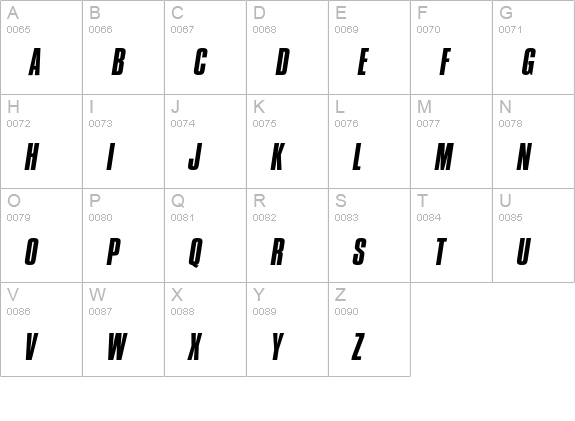
CompactaEF-RegularItalic Font Details
CompactaEF-RegularItalic is a sleek and stylish font that exudes sophistication and modernity. Its italicized design adds a touch of elegance to any text, making it perfect for use in various creative projects, from branding to editorial design. The slender and angular letterforms of CompactaEF-RegularItalic give it a unique and contemporary look that is sure to catch the eye. What sets CompactaEF-RegularItalic apart is that it is available for free download at FontsMarket.com. This means that you can easily access this stunning font for your personal and commercial projects without any cost involved. Whether you are designing a website, creating marketing materials, or working on a print publication, CompactaEF-RegularItalic is a versatile font choice that will elevate your work to the next level. Download CompactaEF-RegularItalic for free today at FontsMarket.com and add a touch of sophistication to your designs with this stylish and elegant font.